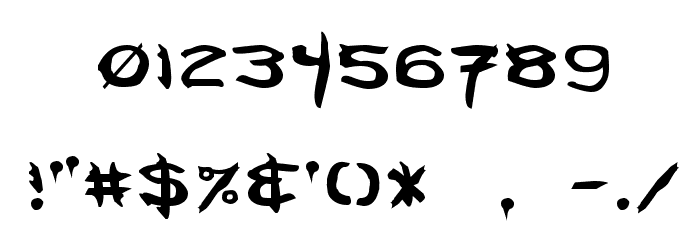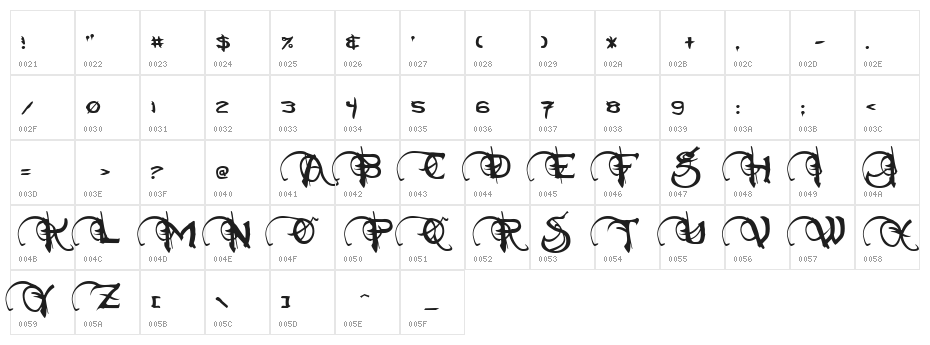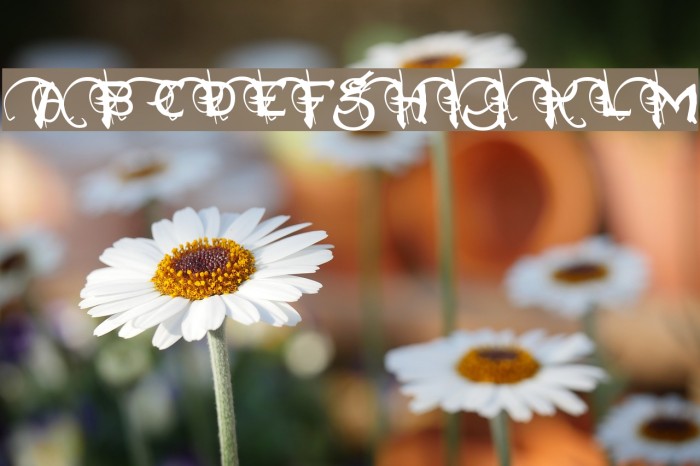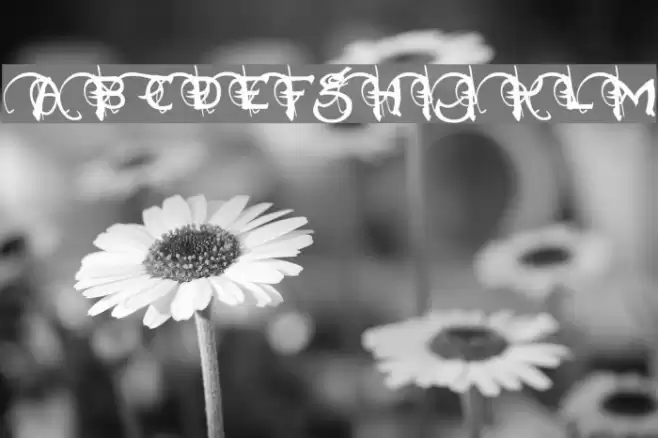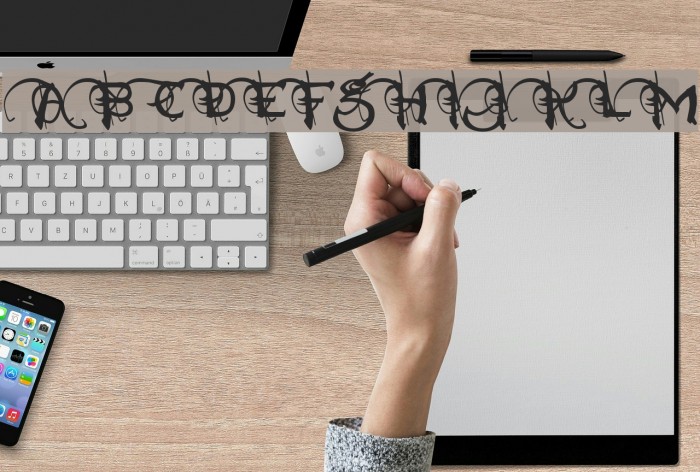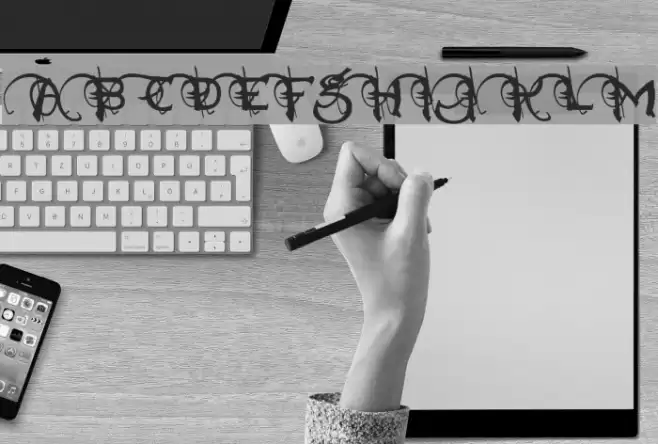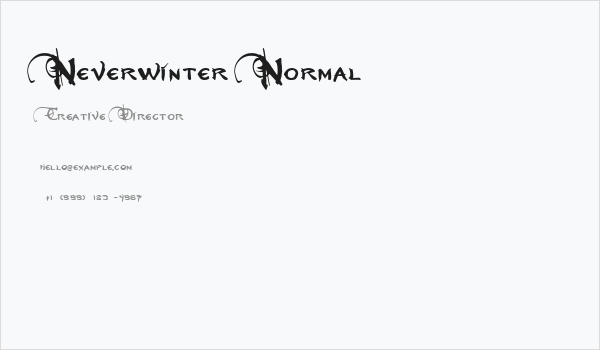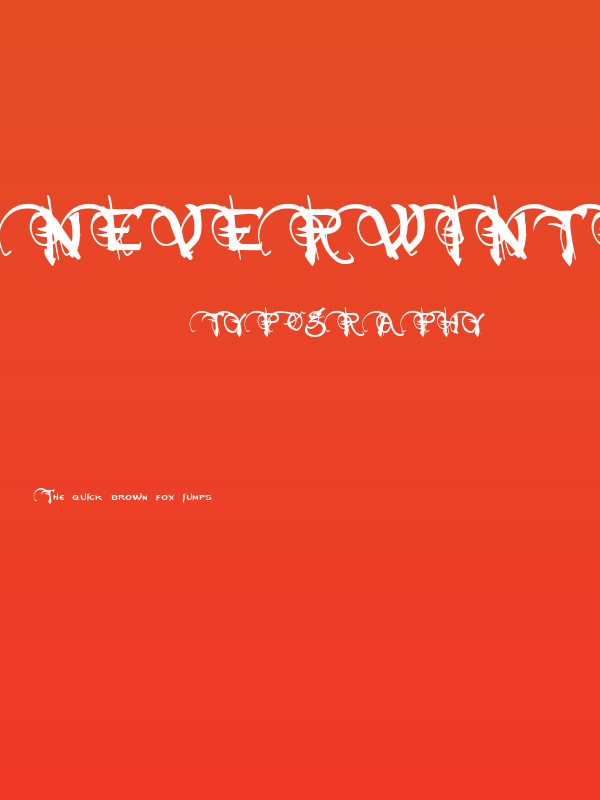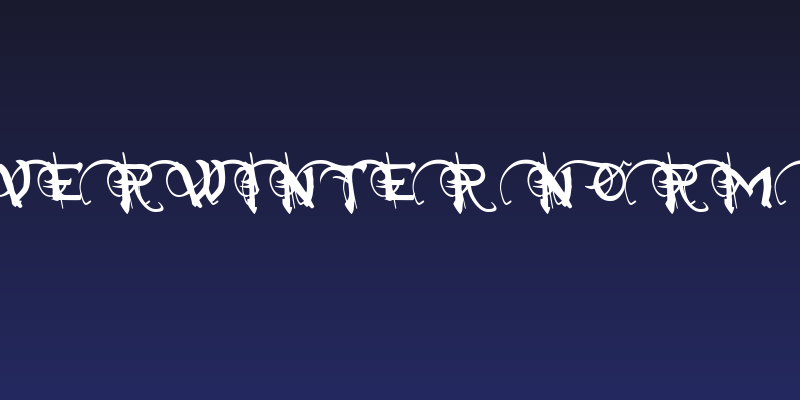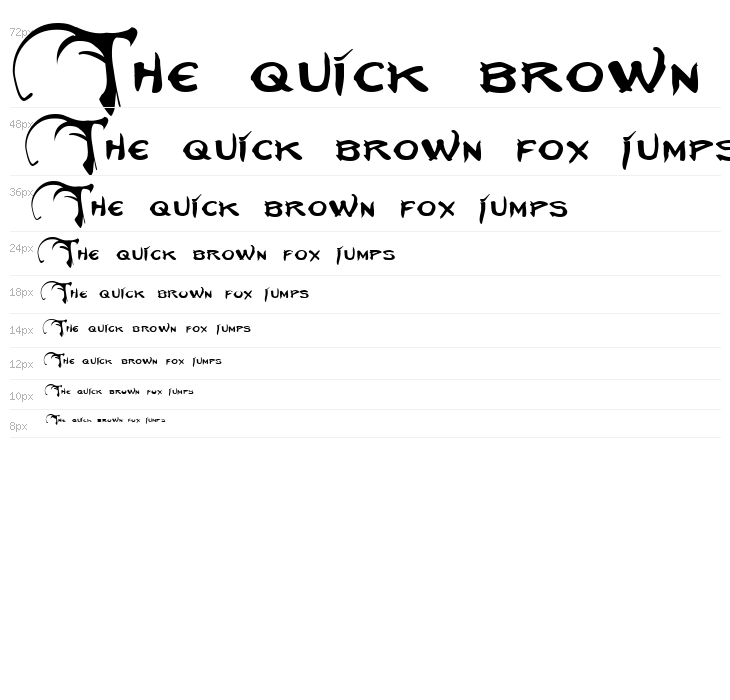
Neverwinter Normal Font
Neverwinter Normal Description
This font features a unique and intricate design, combining elements of both decorative and gothic styles. The uppercase letters are adorned with elaborate, thorn-like embellishments, giving them a mystical and medieval appearance. The lowercase letters maintain a bold and strong presence, with slight variations in stroke thickness that add to their dynamic look. Numbers and special characters follow the same ornate style, ensuring consistency throughout. The overall aesthetic is bold and eye-catching, making it suitable for projects that require a touch of fantasy or historical flair.
| Proposed Projects | Ideal for fantasy-themed designs, game titles, book covers, and posters. |